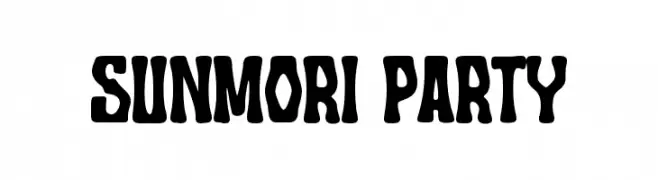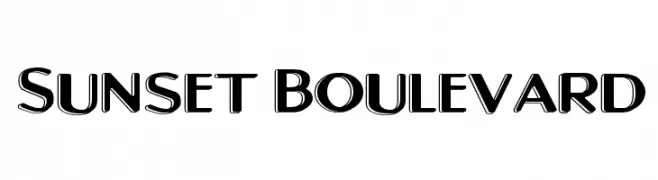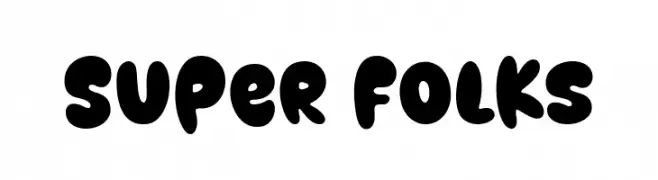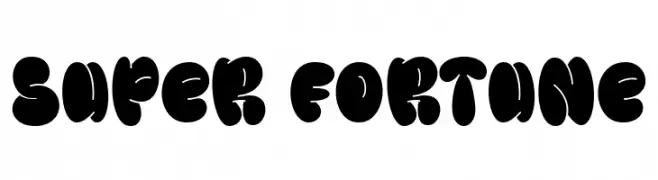
• sunday funnies BoldOutline
A bold, outlined font with a playful and cartoonish style.
• sunday monday
An elegant, flowing script font with a natural handwriting style.
• Sungai Musi
A bold, playful handwritten font with dynamic strokes.
• Sunmori Party
A bold, playful font with a retro-modern twist and rounded, irregular characters.
• Sunset Boulevard
A bold, three-dimensional font with a vintage, retro flair.
• Sunshine Tropical
A playful, bold font with rounded, thick strokes and a whimsical style.
• Super Crown
A bold, playful font with exaggerated curves and a whimsical style.
• Super Folks
A bold, rounded typeface with a playful and whimsical style.
• Super Fortune
A bold, playful font with thick, rounded characters and a bubbly appearance.
• Super Frosting
A bold, rounded font with a playful and whimsical style.